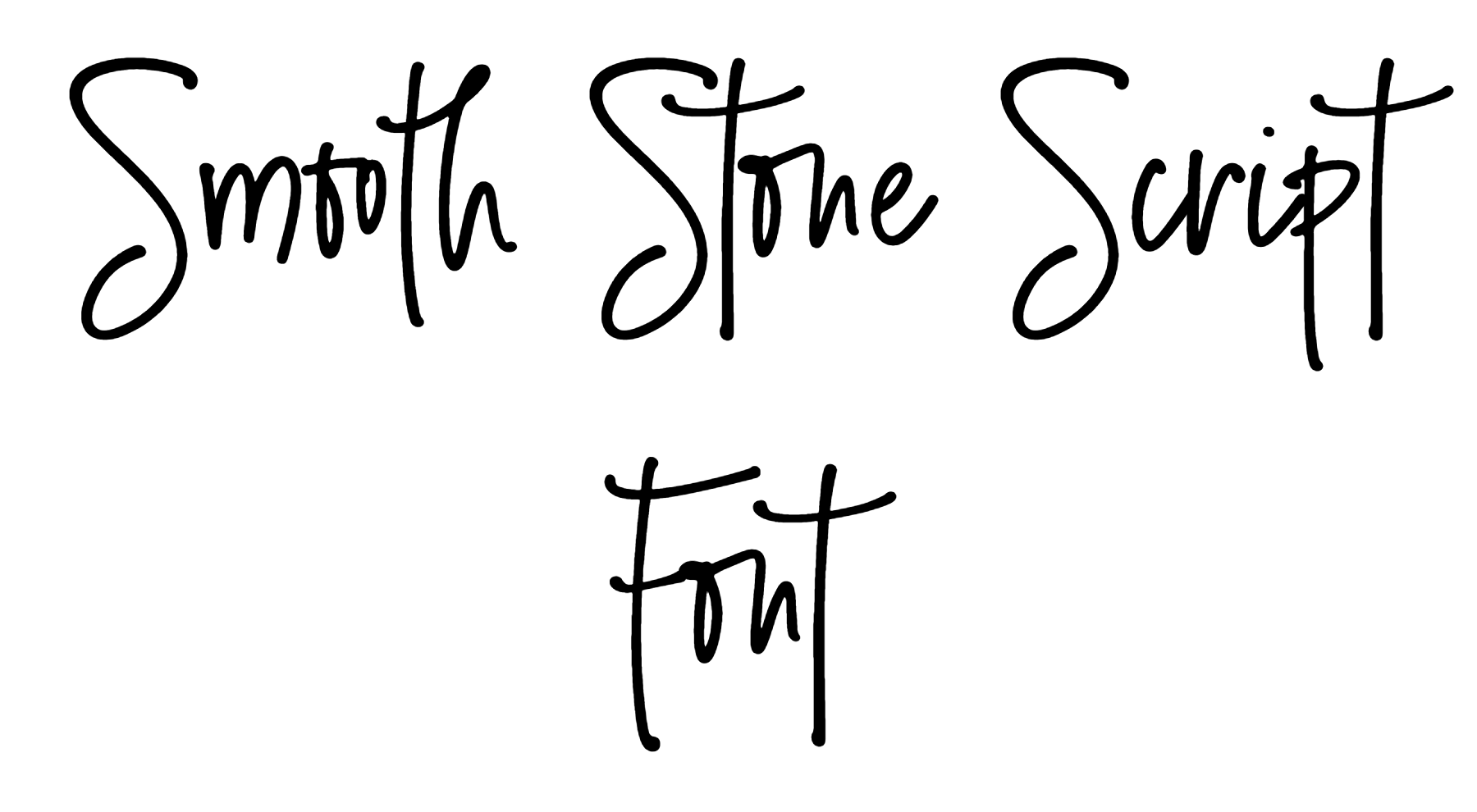
Smooth Stone Script
Smooth Stone Script is a handwritten font designed by Vlad Cristea (2018). The letters have the small wobbles and personality of real handwriting, so your text feels warm instead of printed. You can download it for free and test it with your own words in the preview above.
- Designer: Vlad Cristea
What You Can Type With Smooth Stone Script
Smooth Stone Script covers the full alphabet in upper and lowercase, plus all ten numbers, so you can set names, dates and prices without switching fonts. Common punctuation such as &, !, ? and @ is included as well. It doesn't include accented letters such as é or ñ, which makes it an English-only font.
Ligatures and Smart Letters in Smooth Stone Script
Where Smooth Stone Script Works Best
Smooth Stone Script is a natural fit for greeting cards, journal pages and friendly social posts. Its lowercase letters are small compared to the capitals, so set it a size or two bigger than usual. Set it a bit larger than you would a normal text font. Handwriting styles lose their charm once they get too small to read comfortably.
Who designed Smooth Stone Script font?
Smooth Stone Script was designed by Vlad Cristea. The copyright line inside the font is dated 2018.
Does Smooth Stone Script have ligatures?
Yes. Smooth Stone Script has ligatures that turn on by themselves in most design apps and browsers, so you don't need to do anything special.
Does Smooth Stone Script support accented letters?
No. Smooth Stone Script has no accented letters such as é, ñ or ü, so it's best for English text.